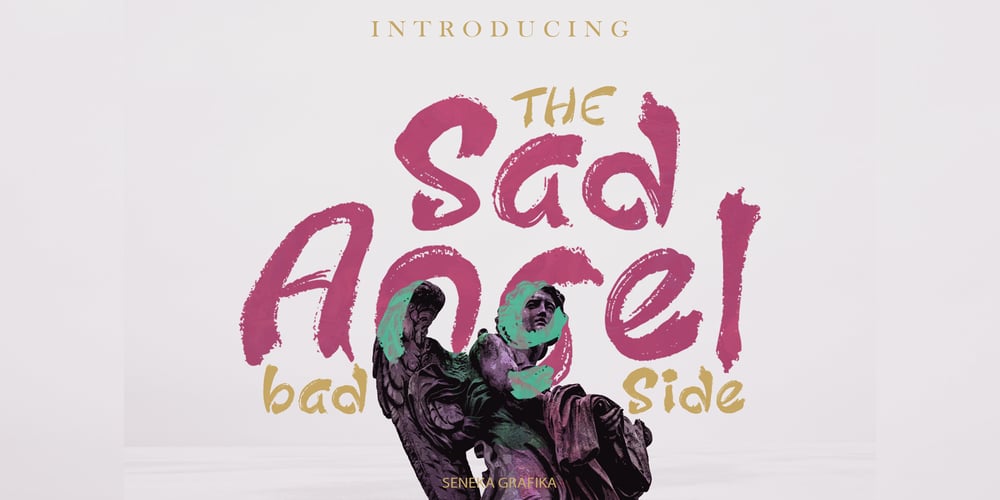
Sad Angel Font Family was designed by Muhammad Helmi and published by Senekaligrafika. Sad Angel contains 1 styles and family package options. “Sad Angel” has hard strokes and signature style that speak to instant unique sensation. Take your creative projects to the highest level with this font.“Sad Angel” will help you to create special and touching typographical design for your projects, for every day or the happiest day in life, greeting card, headings, flyer, product packaging, book cover, printed quotes, logos, and many more. It is really universal and modern font. The owner of endless possibilities!